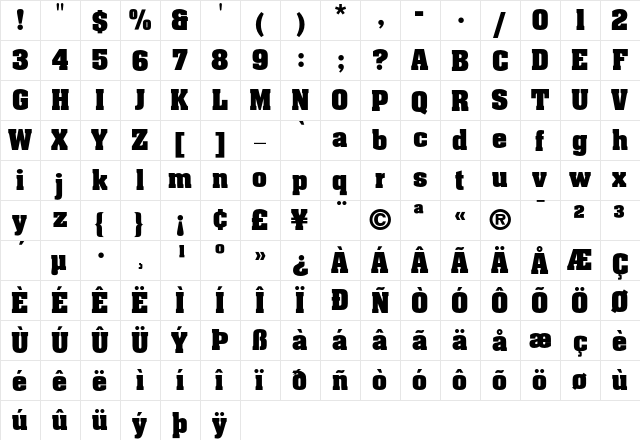
Aachen Bold
Design Context for Aachen Typeface
Aachen takes a measured approach to typography — its balanced proportions and neutral character make it a reliable workhorse for both digital and print work. The heavy weight commands attention and anchors typographic hierarchies.